What's the worst decorative font ever? This might be the best (worst) region yet. It's the final first round of Font Madness — our month-long quest to crown the worst font ever. Pick your poison:
#1 Papyrus vs. #16 Rosewood
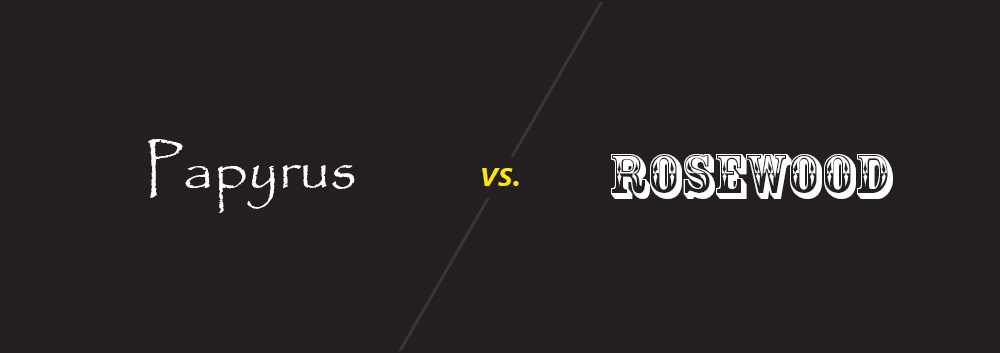
Why Papyrus Is The Worst
Nothing screams “hot garbage” louder than a product touted in Papyrus.
Just look at it. It looks like termites started to chew on someone’s oddly-spaced handwriting, but then the termites realized “geez, this is awful” and left it to rot. Papyrus is not some whimsical, vaguely-Mediterranean typeface. It’s a bucket of trash not even good enough for termites.
I’ll admit. I’ve never visited the Mediterranean. In my mind, it’s this picturesque slice of Earth where brilliant blue water hugs rocky shores dotted with colorful villas. But maybe I’m wrong. Maybe it’s a hellish landscape where everything is written in Papyrus.
Why Rosewood Is The Worst
Rosewood is such an insanely specific style to be a common system font. Who thought it was necessary to equip every armchair designer with the ability to turn a company newsletter into a tacky wild west saloon?
#8 Wingdings vs. #9 Giddy Up
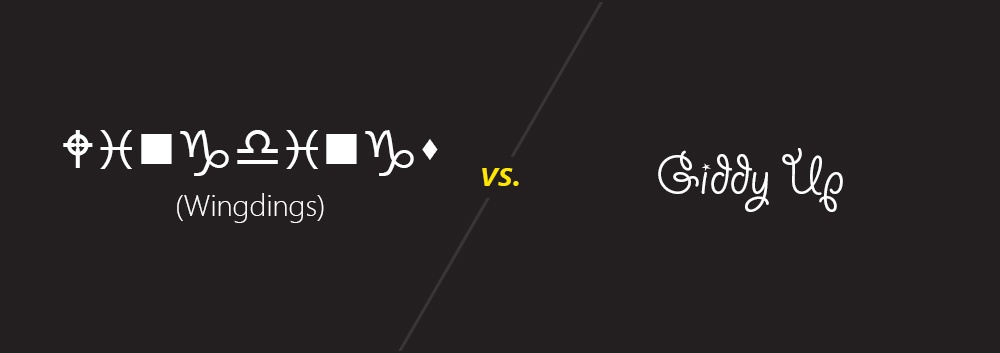
Why Wingdings Is The Worst
Set aside the fact that dingbat fonts once served a purpose in classical typesetting. Look at those damn characters. How often do we need zodiac symbol icons? I've been using computers for the better part of three decades (ugh) now. Never once have I been like "boy, really wish I had the Capricorn character handy!"
Why Giddy Up Is The Worst
What are you supposed to be? Ropes? Little lasso-like curls? Giant pigtails? Do we really need one on every single character? Seems a bit much.
#5 Waker vs. #12 Tempus Sans ITC
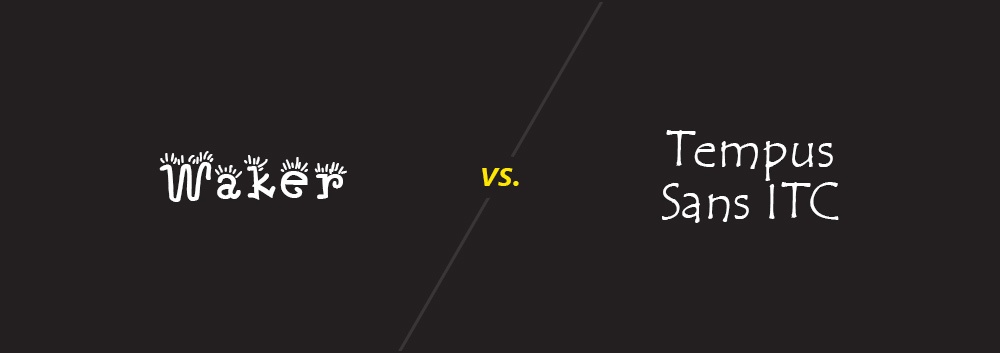
Why Waker Is The Worst
Wow. There is a lot to unpack here. This is a bad font even without the Chia Pet hair, but I'm guessing by the font name that those wildly unnecessary lines are supposed to be...sunbeams? I don't know. The actual answer doesn't matter. This is so awful.
Why Tempus Sans ITC Is The Worst
Oh no, Papyrus has a cousin! Getting confused with Papyrus is not a good bullet to have on a resume. There's really no way to recover from that.
#4 Curlz MT vs. #13 Ravie
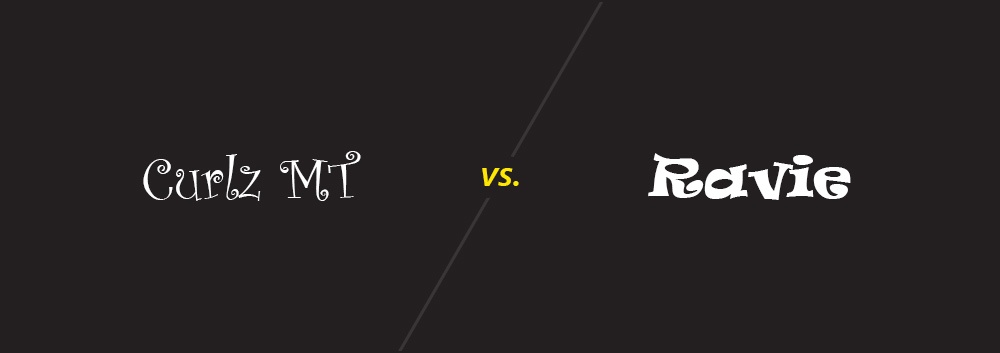
Why Curlz MT Is The Worst
Hahaha. Honestly, why? One curl is PLENTY decoration on any given word. A whole string of curls—sorry, curlz—is just ludicrous. Fun fact: The same guy who developed Open Sans (a very respectable sans serif font) is responsible for the monstrosity that is Curlz MT. Talk about a portfolio spectrum.
Why Ravie Is The Worst
If Ravie could walk, this music would start playing every time.
#6 Bleeding Cowboys vs. #11 Hobo
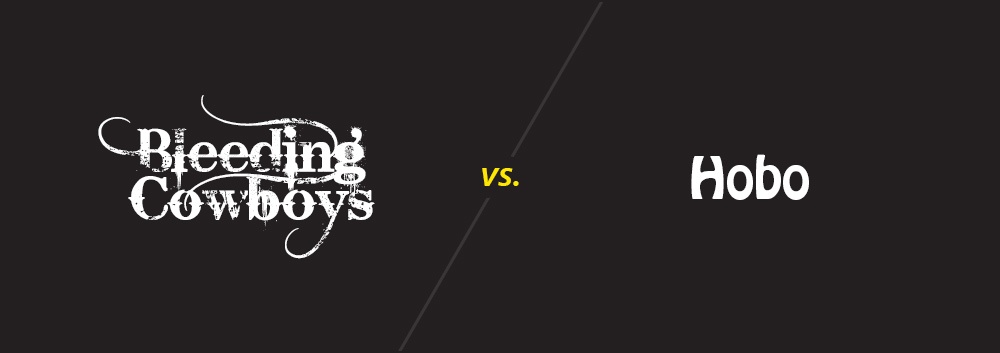
Why Bleeding Cowboys Is The Worst
Some fonts are boring. Others make your eyes bleed. If this font were a human, it would be a 23-year old woman from Ohio wearing cowboy boots at a Nickelback concert.
Why Hobo Is The Worst
Straight lines be damned! Hobo is here. Unless you're the graphics editor for That 70's Show, you should not be using Hobo. Ever.
#3 Jokerman vs. #14 Stencil
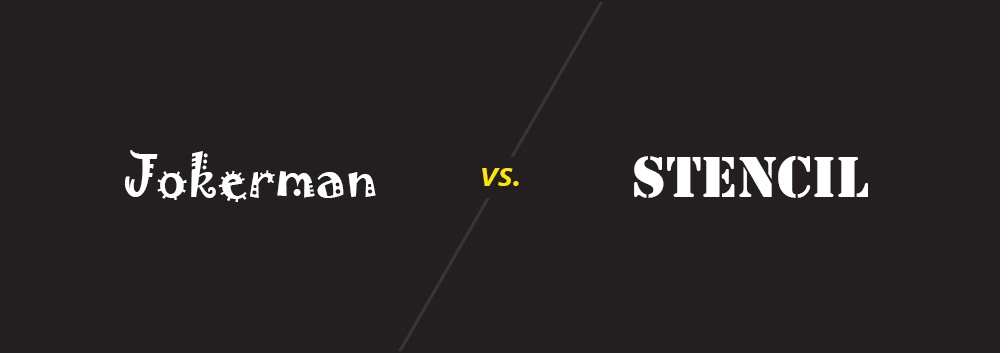
Why Jokerman Is The Worst
If I had a dollar for every time I saw a "crafty" business use this font in their signage or branding, I would have a lot of money not to spend at those businesses.
Why Stencil Is The Worst
"Hey, I made this new typeface."
"What's it look like?"
"Stencils."
"What are you gonna name it?"
"Stencil."
The creativity is strong with this one.
#7 Snap ITC vs. #10 Lobster
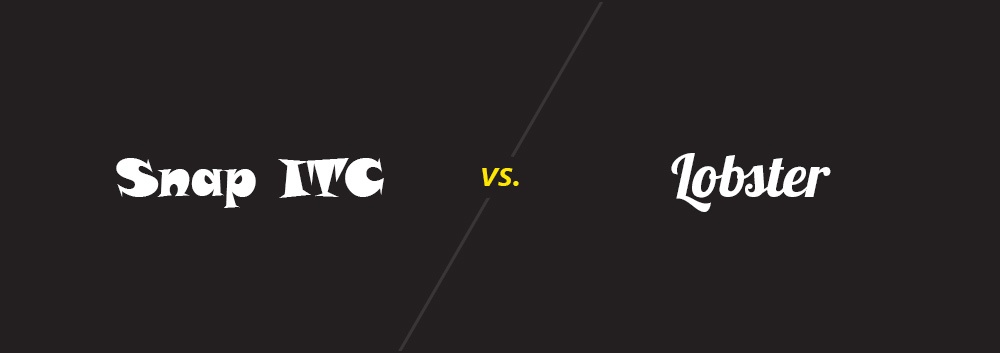
Why Snap ITC Is The Worst
Not to be outdone by it's chunky relative Ravie, Snap ITC comes bumbling onto the screen with absolutely zero respect for its appearance. It's like that neighbor who goes out to fetch the paper in his robe and boxers. Just pure disregard for anyone's visual well-being.
Why Lobster Is The Worst
I (half-heartedly) apologize to anyone who is not familiar with Lobster. You will never stop noticing it now. Relatively new to the scene, Lobster has emerged as the hip choice of novice designers everywhere to attempt to overcompensate for their otherwise mediocre design work. It may have fooled people in 2013, but we're on to you now, Lobsterers.
#2 Gigi vs. #15 Herculanum
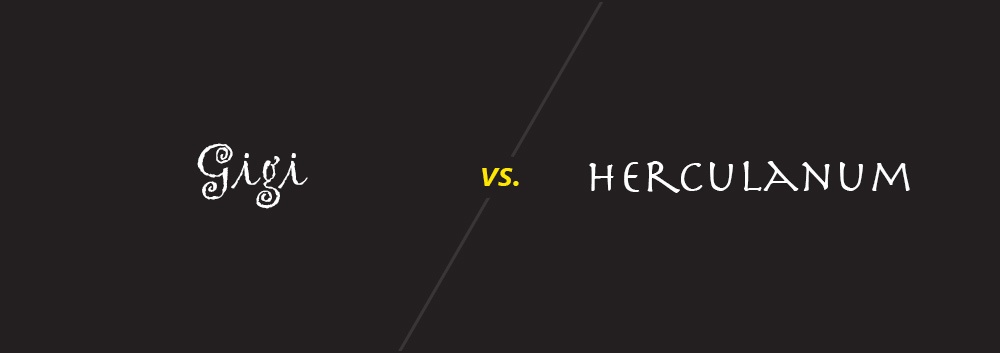
Why Gigi Is The Worst
Microsoft describes Gigi as a font with a "charming and fresh handwritten quality." Keep in mind Microsoft also produced Windows Vista.
Why Herculanum Is The Worst
Allegedly named after Herculaneum—an ancient Roman city destroyed by the eruption of Mount Vesuvius—Herculanum looks like the unwanted offspring of a drunken hook-up between Papyrus and Trajan Pro. It too should suffer a pyroclastic fate.